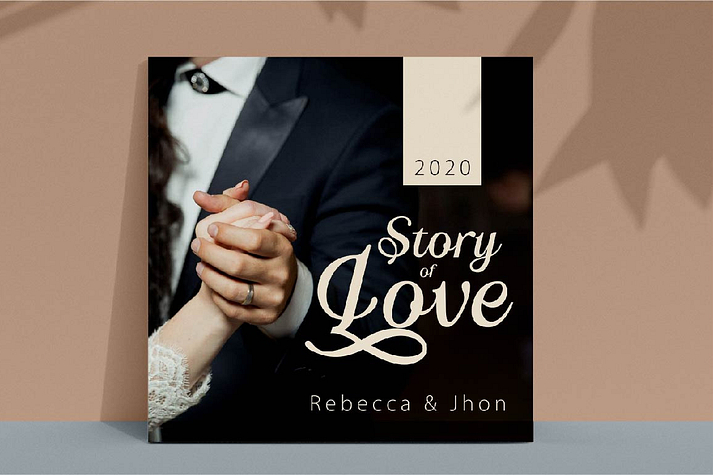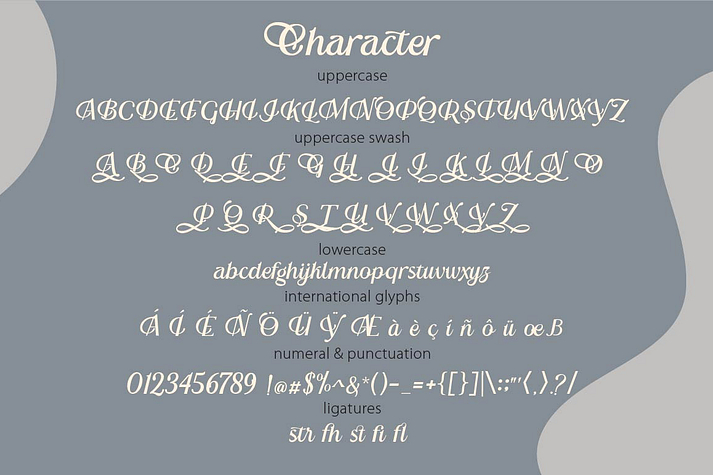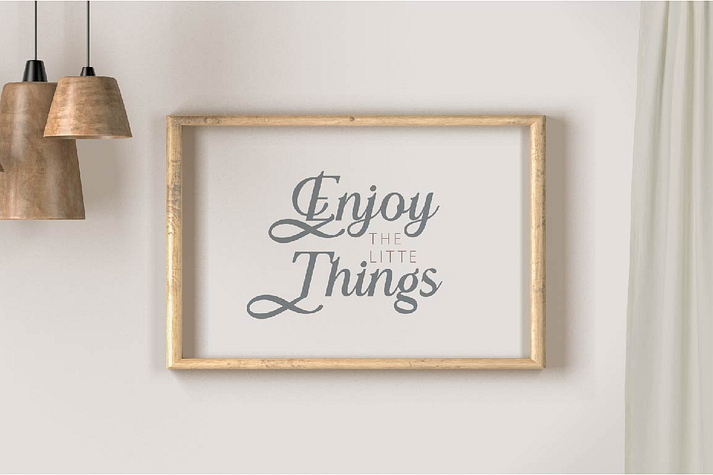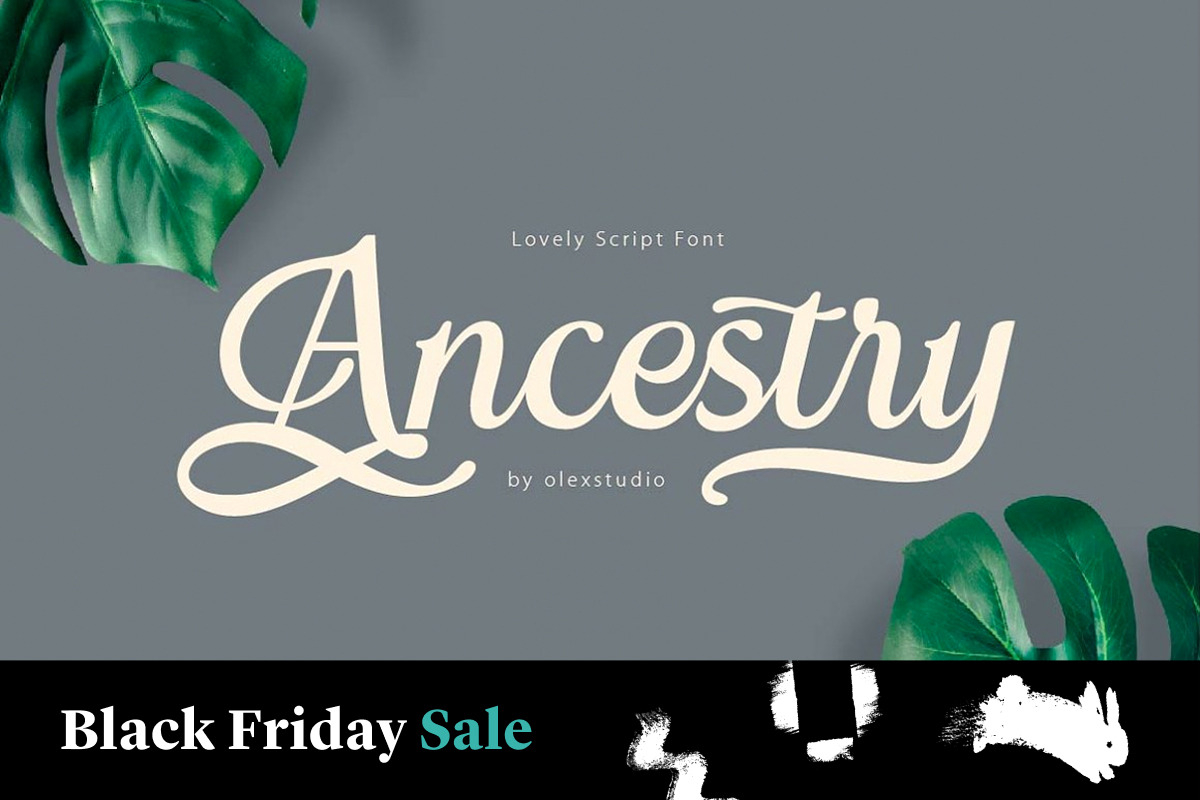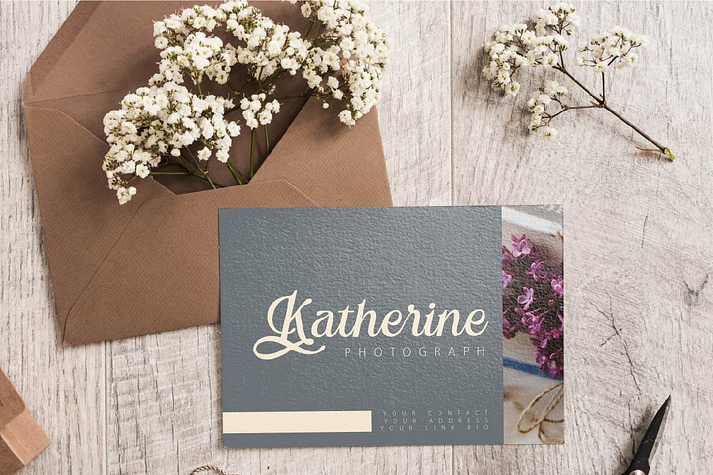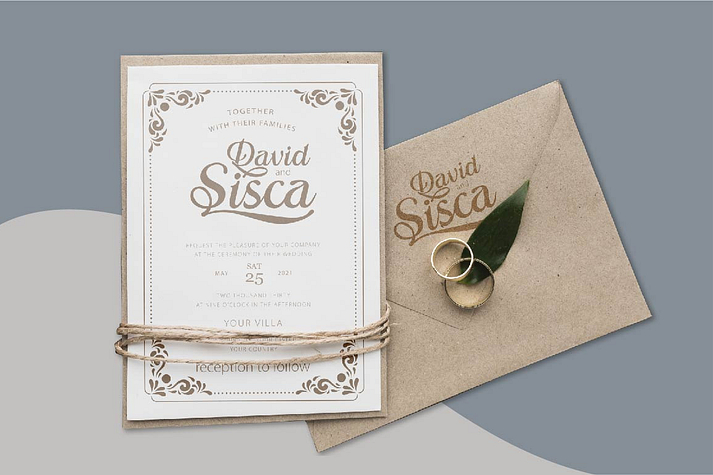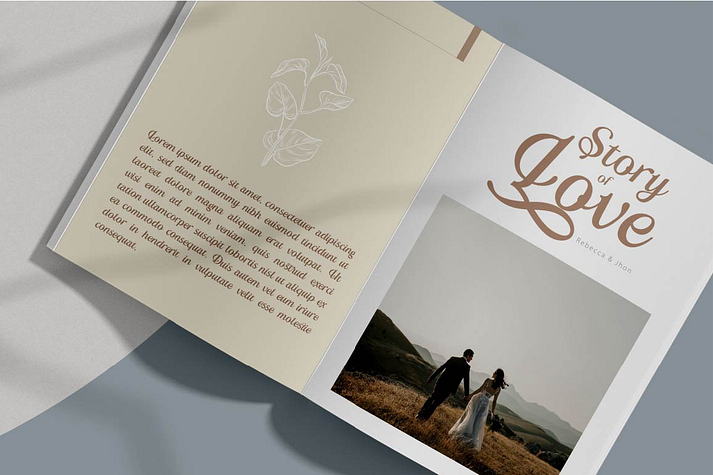
Ancestry Script
Ancestry Script is a font family published by olexstudio.
ANCESTRY Script Font will look gorgeous on all your designs, invitation, poster design, book design, branding materials, logo’s, t-shirt and all project design other.
ANCESTRY Script contains standard characters, Lowercase, Uppercase Swashes, Uppercase, numbers, punctuation, ligatures and international glyphs. You will receive OTF, TTF files & WEBFONT.